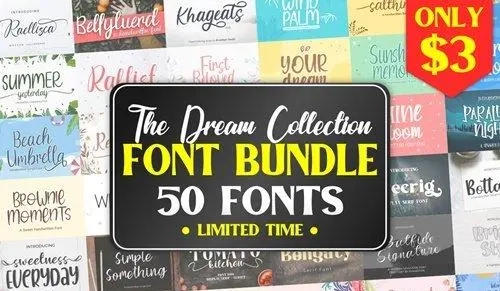
The Dream Collection Font Bundle
Introducing The Dream Collection Font Bundle, a carefully curated selection of fonts designed to elevate your creative projects. This bundle features a variety of styles, including elegant scripts, modern sans-serifs, and classic serifs, ensuring you have the perfect typeface for any occasion.
• Multiple font styles: script, sans-serif, and serif
• Various weights for versatility
• 10 unique fonts
• Comprehensive character sets
• Script fonts for elegant branding and invitations
• Sans-serifs for clean and modern web design
• Serif fonts for traditional print projects
• Use script fonts for personal touches in wedding invitations or greeting cards.
• Opt for sans-serifs in digital marketing materials for a contemporary look.
• Incorporate serif fonts in printed publications for a classic feel.